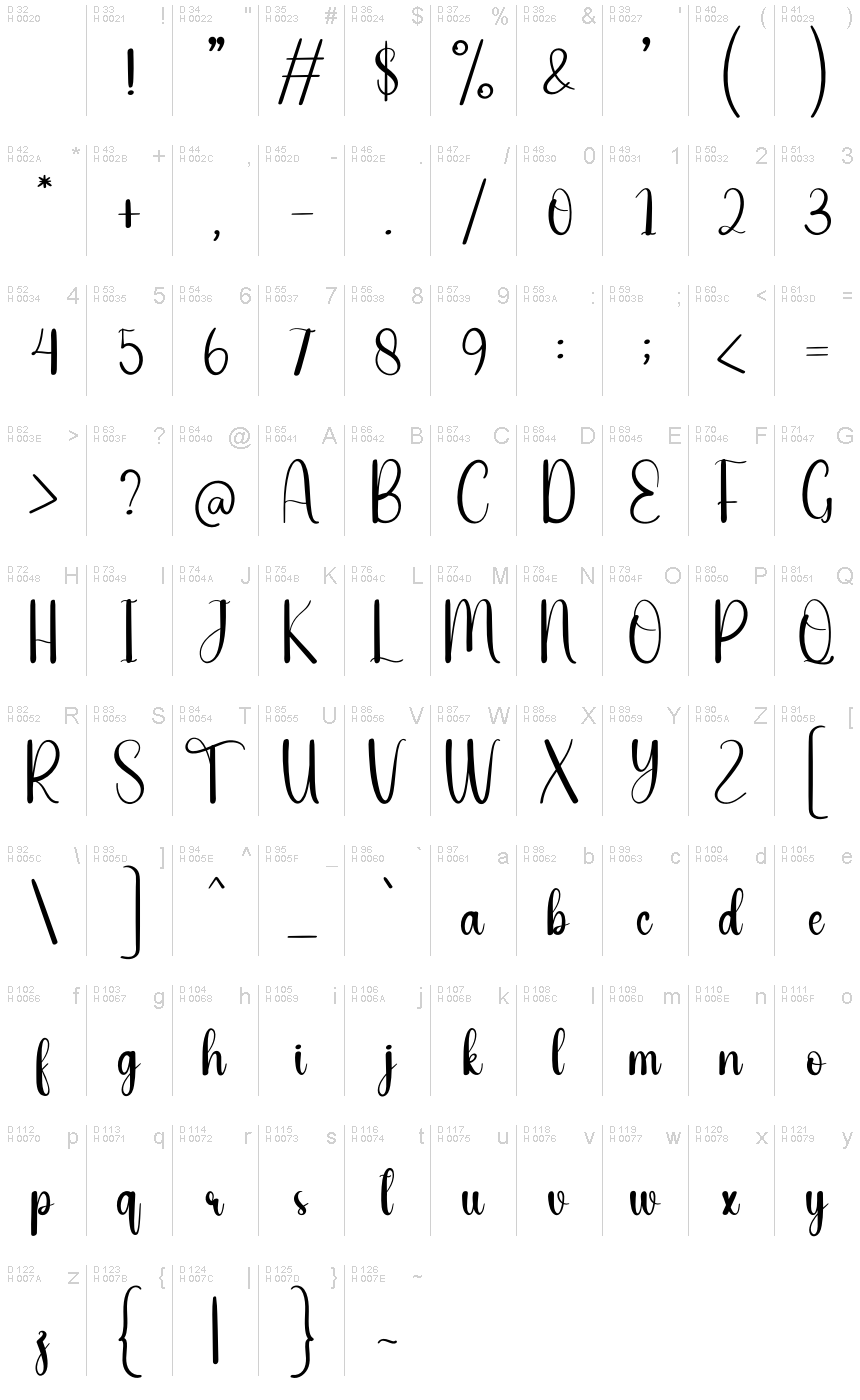
Spring Wedding
Spring Wedding, crafted by Andi Moz, is a delightful handwritten display font that radiates sweetness and friendliness. Its charming strokes and playful flair make it the perfect choice for adding a whimsical touch to your designs.
Envision the grace of this font bringing wedding invitations to life or infusing greeting cards with heartfelt warmth. Its light-hearted, fun style ensures every message feels personal and inviting.
Ideal for any project seeking a dash of cheerfulness, Spring Wedding enhances engagement through its visually endearing presentation, promising an enchanting appeal in every setting.